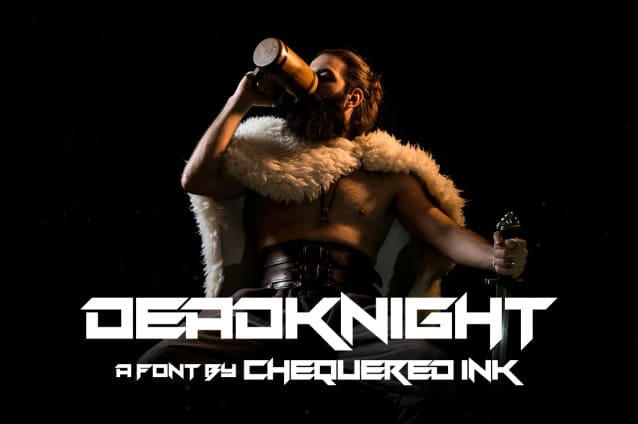
Deadknight Display Font
Deadknight Display Font, is a futuristic font, a font inspired by the visual of technology that we can find from logo, sci-fi movies, games, and the present gadgets. Designed with minimalist style and unique letterforms, a perfect choice to use on logos, labels, posters, packaging, books, movies, presentations, games, and much more!